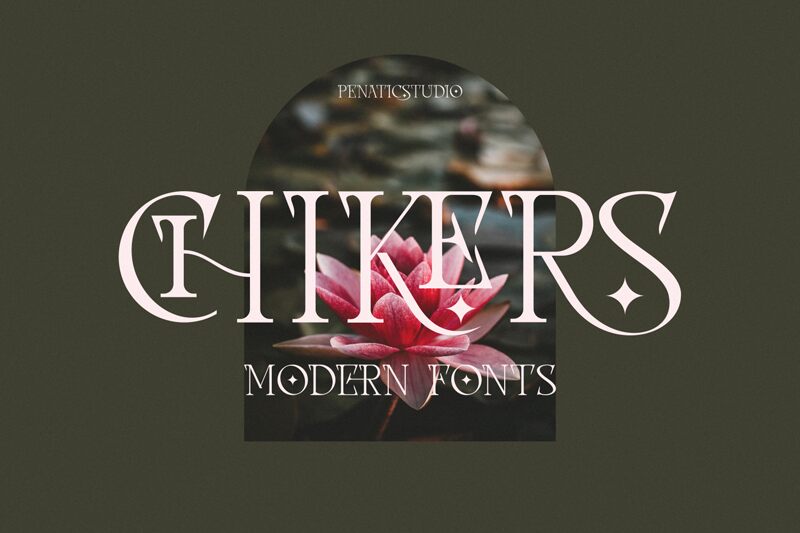
CHIKERS, designed by Penatic Studio, is a captivating serif font with a semi-light weight. With its elegant and refined style, CHIKERS brings sophistication to any project it graces. Its clean lines and subtle curves make it perfect for conveying professionalism and class.
Whether it's creating eye-catching logos, designing stunning invitations, or crafting luxurious packaging, CHIKERS adds a touch of timeless beauty. This versatile font is equally suitable for branding high-end fashion houses or adding an air of sophistication to food menus.